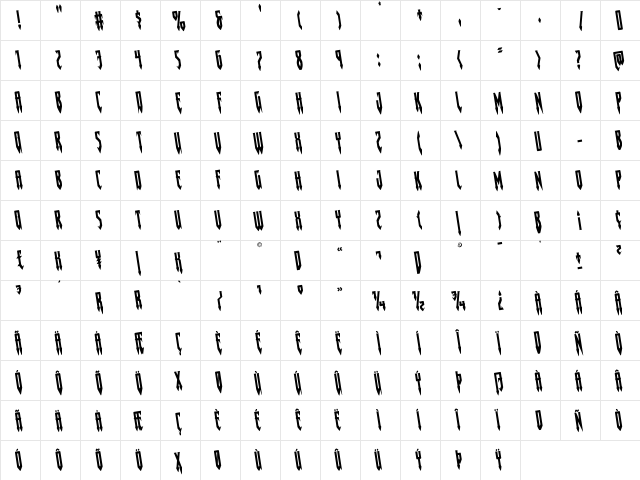
Gotharctica Rotated Regular
Design Context for Gotharctica Rotated Typeface
Gotharctica Rotated is a composed and adaptable typeface that performs quietly and consistently across a wide range of design contexts.